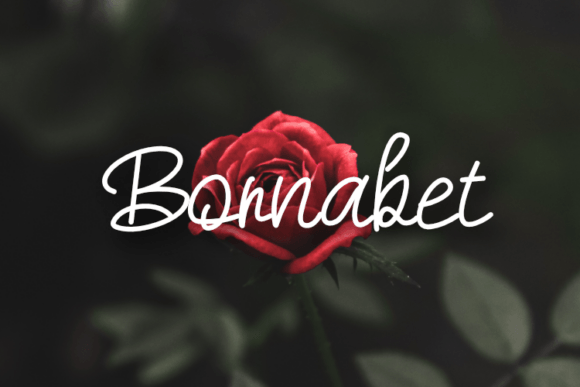
Unleash Your Creativity with Bornabet Font: The Ultimate Fashion Design Companion
Are you a fashion designer, crafty DIY enthusiast, or a creative entrepreneur looking for the perfect font to elevate your design aesthetics? Look no further than Bornabet Font, the quintessential typeface for all your fashion design needs. Bornabet is a versatile and stylish font that seamlessly integrates into every software, making it the ideal companion for all your creations – from clothing to t-shirts, and everything in between.
What Sets Bornabet Apart?
Bornabet Font is designed to stimulate your creativity and transform your projects from routine to extraordinary. With its sleek and modern design, Bornabet is tailored to meet the demands of fashion designers, crafters, and entrepreneurs who require a font that is both stylish and versatile. Whether you’re creating a logo, branding materials, or simply designing a t-shirt, Bornabet is the perfect choice.
Bornabet Font is designed to be versatile and adaptable, making it suitable for a wide range of design applications. Some of the many ways you can use Bornabet include:
- Fashion design: Create stunning clothing designs, from haute couture to streetwear, with Bornabet’s sleek and modern aesthetic.
- T-shirt design: Add a touch of style and sophistication to your t-shirt designs with Bornabet’s clean and elegant lines.
- Logo design: Create a lasting impression with Bornabet’s unique and memorable design.
- Branding: Establish a strong brand identity with Bornabet’s versatile and adaptable design.
Why Choose Bornabet?
So, why choose Bornabet Font over other fonts on the market? Here are just a few reasons why Bornabet stands out:
- Unique design: Bornabet’s sleek and modern design sets it apart from other fonts on the market.
- Versatility: Bornabet is adaptable and suitable for a wide range of design applications.
Tips for Getting the Most Out of Bornabet
To get the most out of Bornabet Font, here are a few tips:
- Experiment with different sizes: Bornabet looks great in a variety of sizes, from small and delicate to large and bold.
- Play with colors: Bornabet pairs well with a range of colors, from bright and bold to soft and pastel.
- Combine with other fonts: Bornabet can be paired with other fonts to create a unique and eye-catching design.